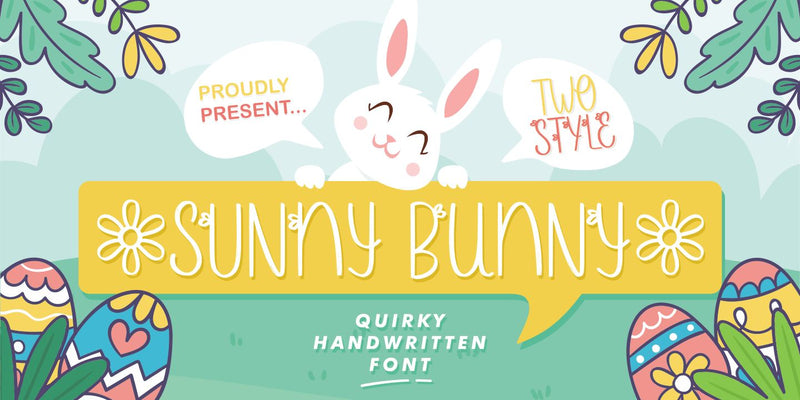
Sunny Bunny - Quirky Fonts
Proudly Presenting, Sunny Bunny a Quirky Handwritten Font.
Sunny Bunny is perfect for any tittles, logo, product packaging, branding project, megazine, social media, wedding, or just used to express words above the background.
Sunny Bunny also come with Multi-Lingual Support.